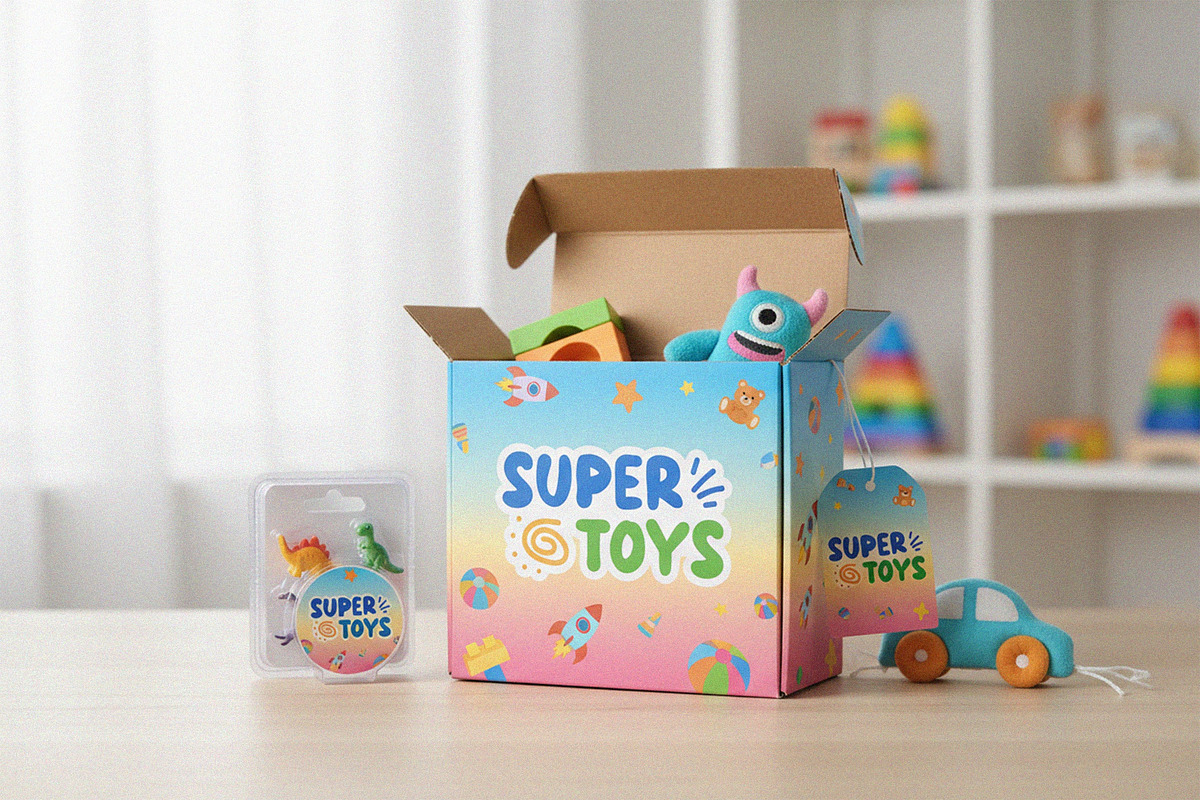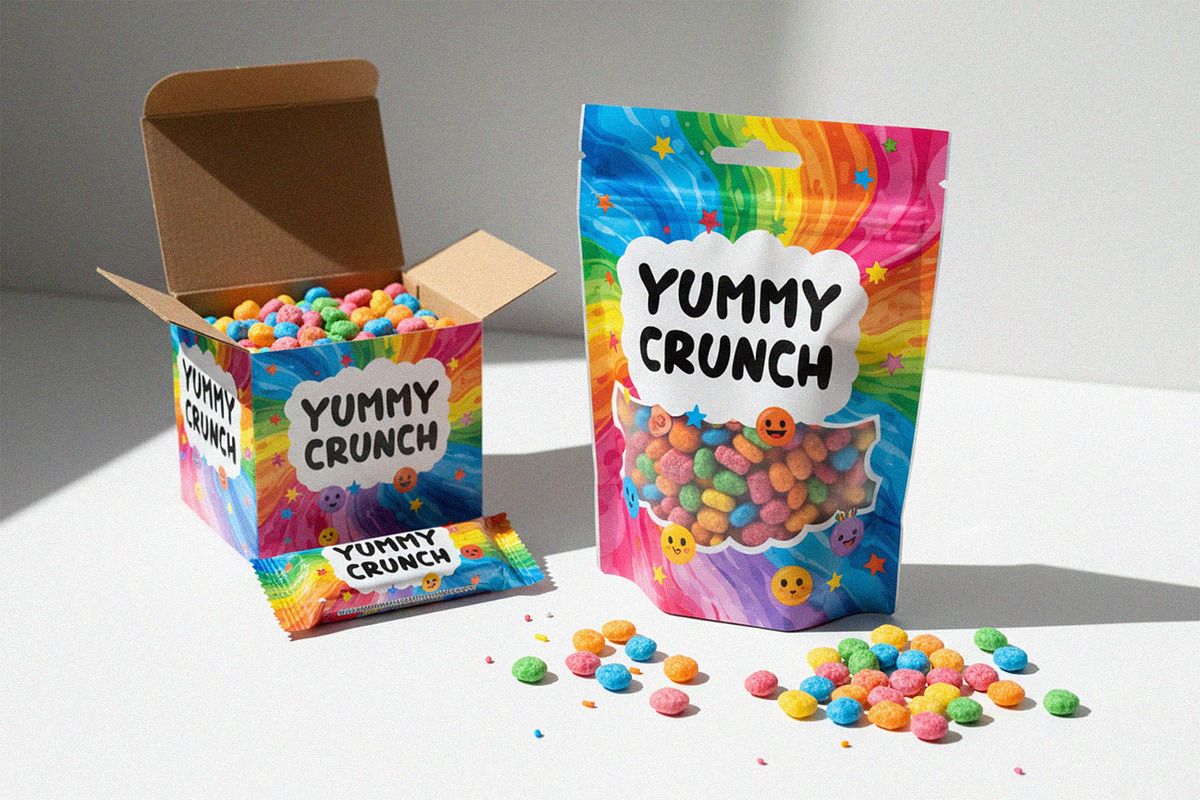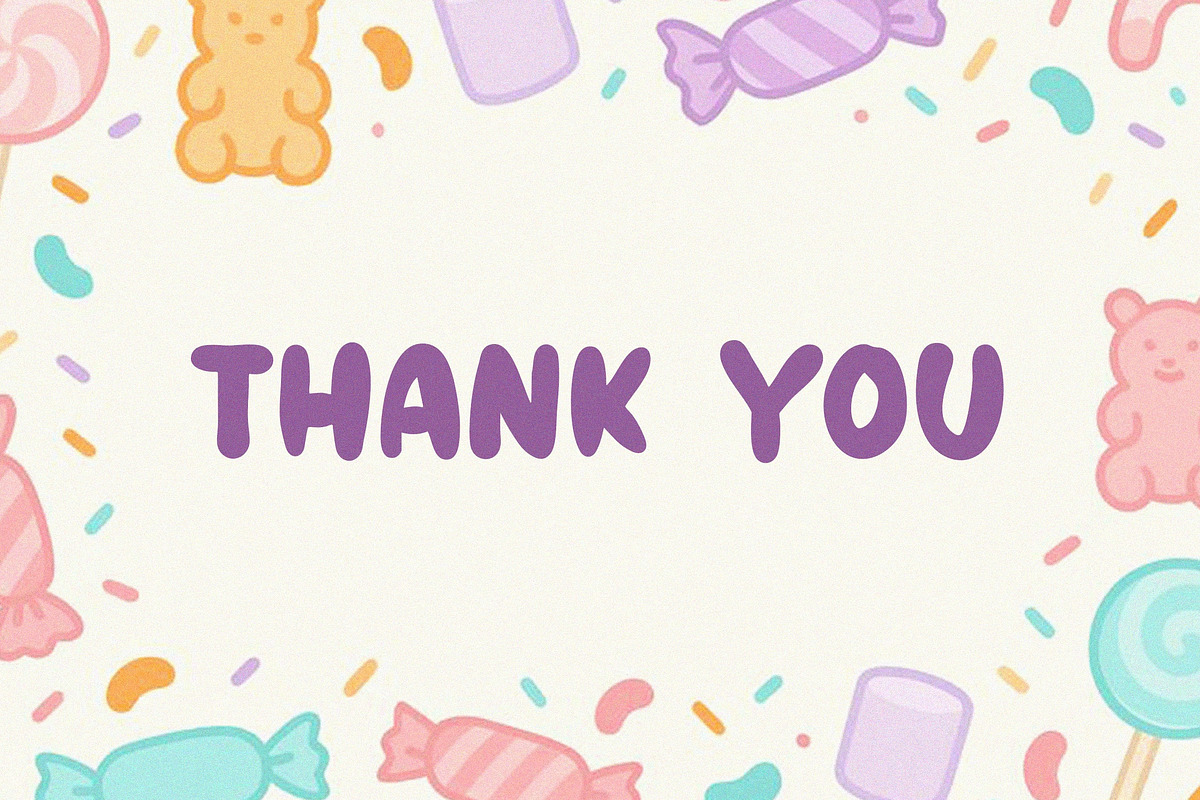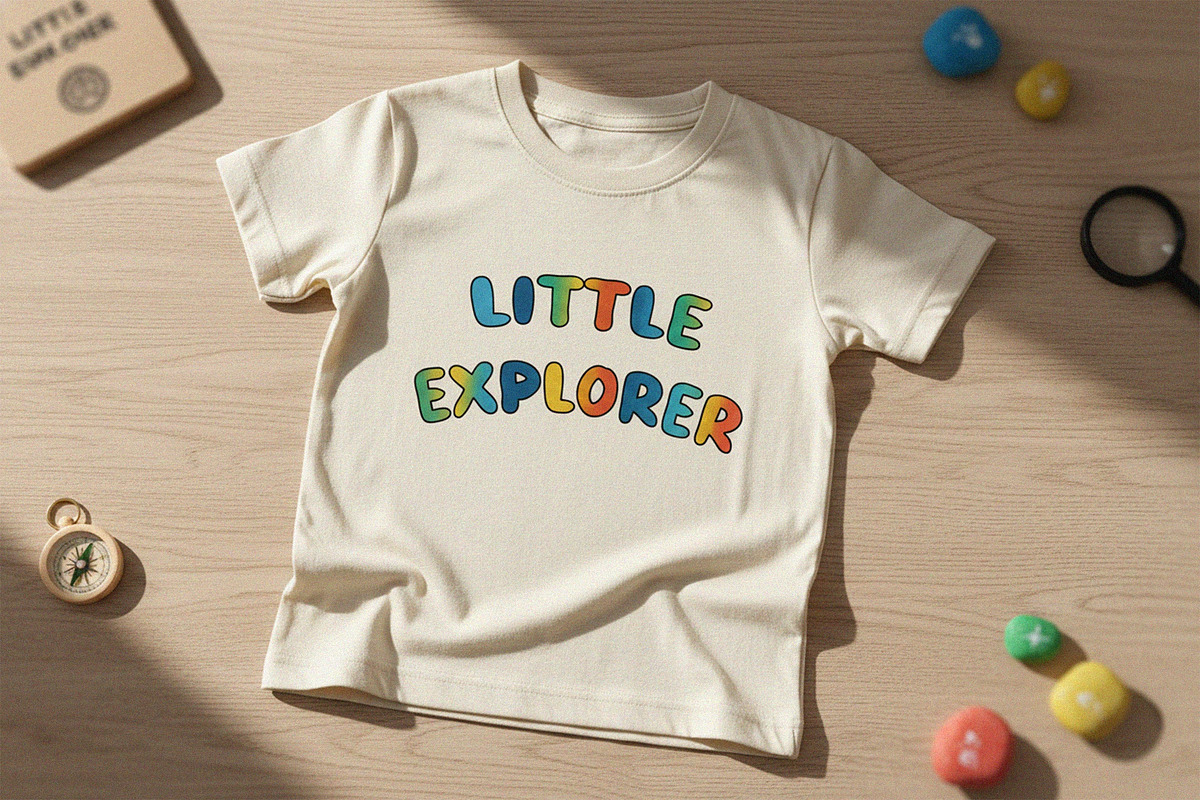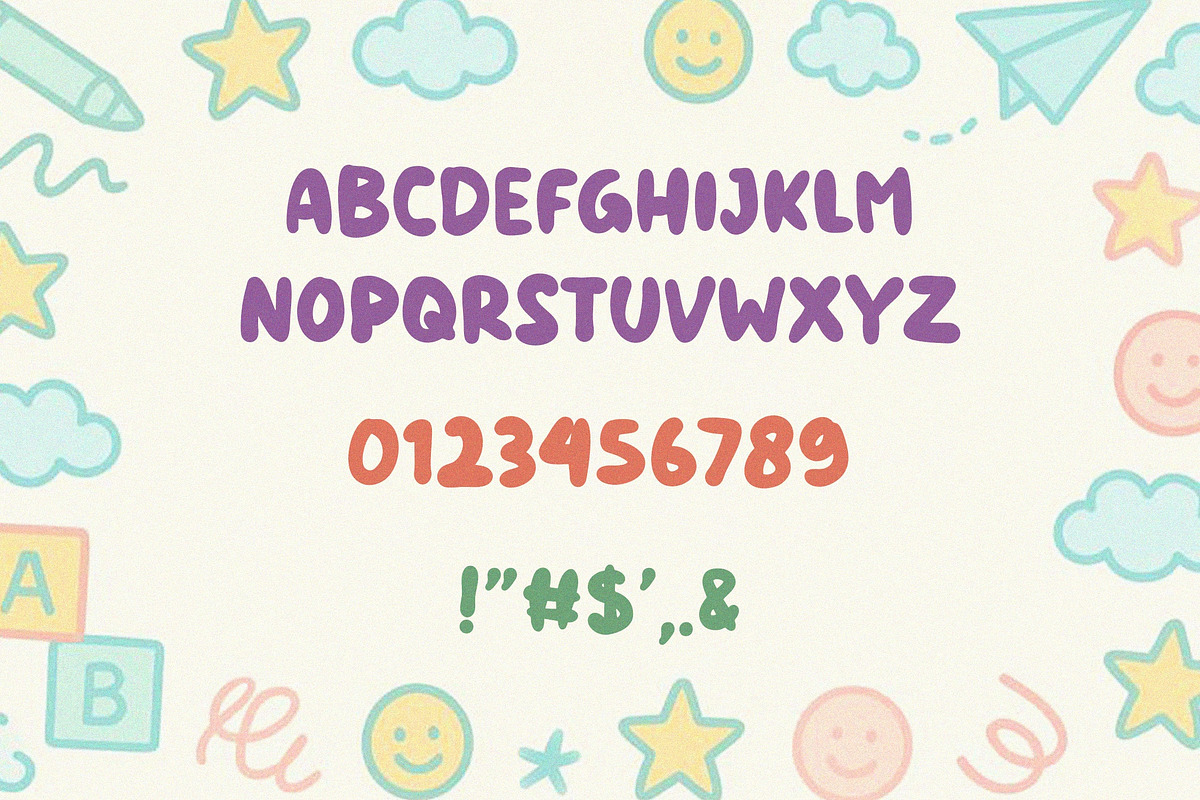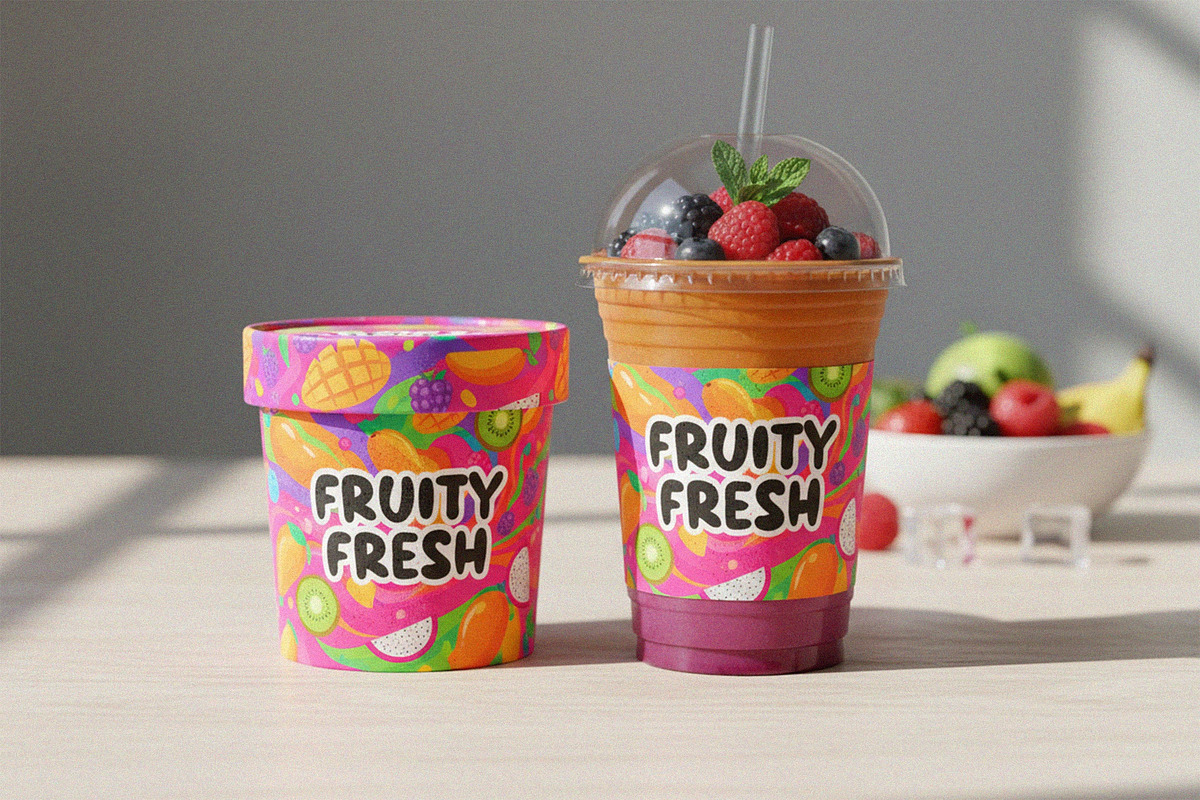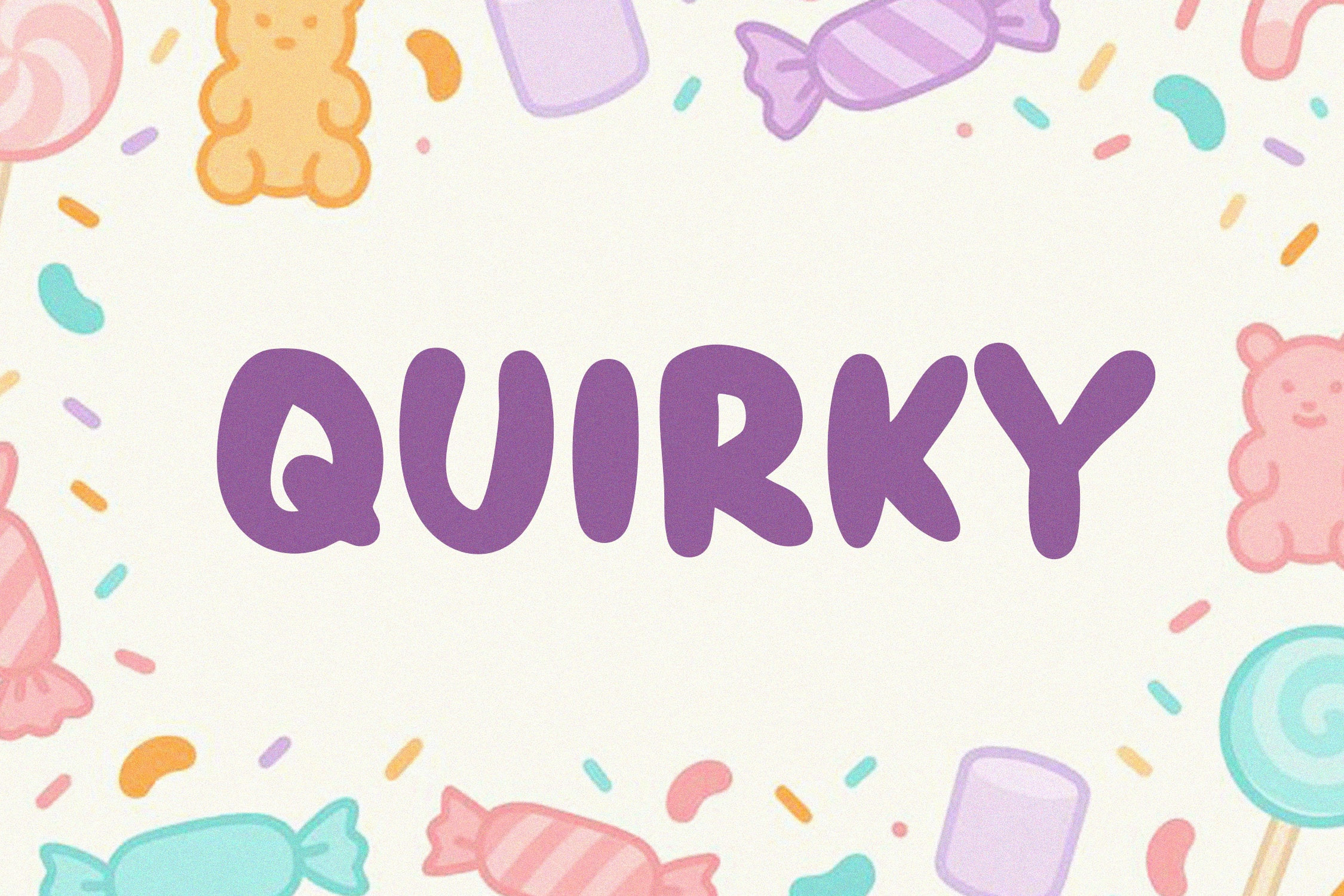
QUIRKY - Playful Handwriting Font
QUIRKY Playful Handwriting Font is a fun, energetic typeface designed to bring happiness and personality to any project. With its irregular strokes, lively movement, and adorable handwritten charm, QUIRKY is perfect for toys packaging, snack and candy products, kids’ apparel, playful branding, greeting cards, stickers, and social media graphics. Every letter feels spontaneous and full of character, giving your designs a friendly, imaginative, and standout look. Despite its fun attitude, QUIRKY remains clean and readable—making it both expressive and practical for a wide range of creative uses. Add a spark of joy and creativity to your visual identity with this delightful font.